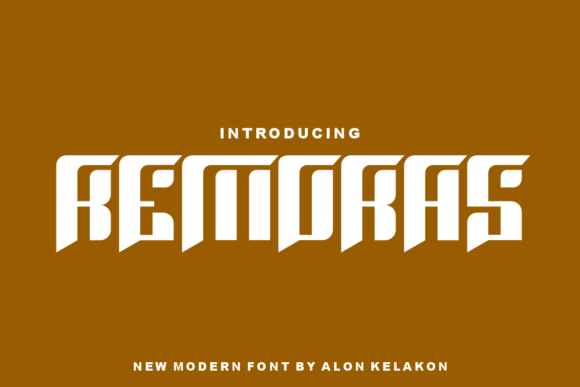
Dive into the world of gaming and let your imagination soar with Remoras Font, the ultimate font for crafting captivating gaming logos that leave a lasting impression. Remoras Font belongs to the prestigious display font family, renowned for its striking presence and ability to command attention. As a creation of the esteemed alonkelakon, this font exudes a cool and modern vibe, perfectly in sync with the dynamic energy of the gaming universe.
Unleash your creativity and embark on a journey where the possibilities are limitless. Remoras Font is not just a collection of letters; it's a gateway to a world of visual storytelling. Its unique design and captivating letterforms will ignite your passion for creating logos that resonate with gamers of all ages. Prepare to witness your designs transform into captivating masterpieces that evoke excitement, intrigue, and a thirst for adventure.
With Remoras Font, you'll discover a font that's more than just a visual element; it's an extension of your creative spirit. Its bold and distinctive character will add an instant touch of sophistication and professionalism to your gaming logos, leaving a lasting impression on players worldwide. Whether you're designing for a first-person shooter, a role-playing game, or a thrilling sports title, Remoras Font will effortlessly elevate your creations to new heights of excellence.
Don't settle for ordinary fonts that blend into the background. Embrace Remoras Font and unleash the true potential of your gaming logos. Its meticulously crafted curves and sharp edges will demand attention, making your designs impossible to ignore. Prepare to witness your logos come alive with an energy that reflects the passion and intensity of the gaming world.
So, why wait? Embark on this extraordinary journey today and discover the transformative power of Remoras Font. Let your imagination run wild as you create gaming logos that capture the essence of adventure, challenge, and victory. With Remoras Font as your creative companion, you'll leave an indelible mark on the gaming community, leaving players in awe of your artistic prowess.